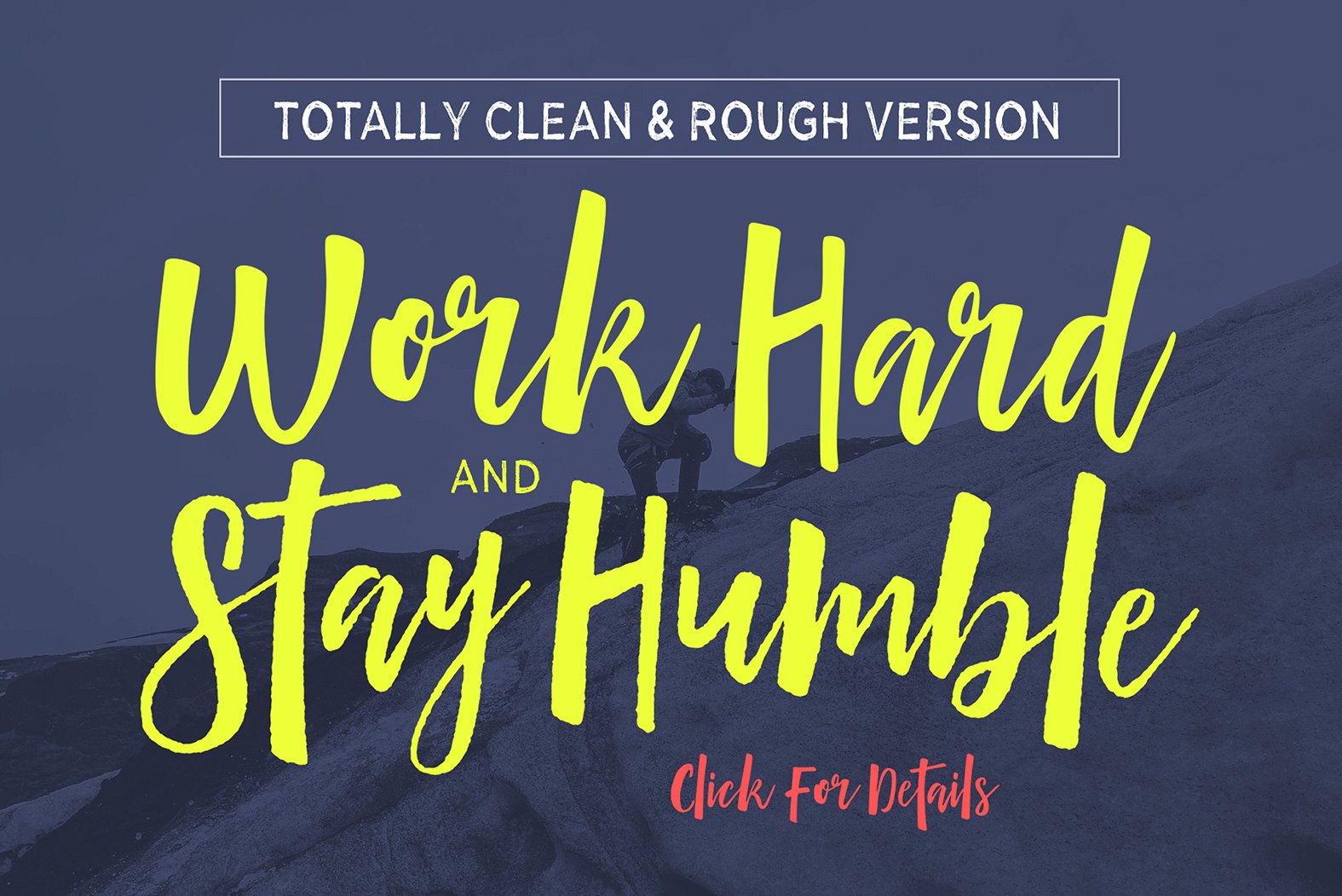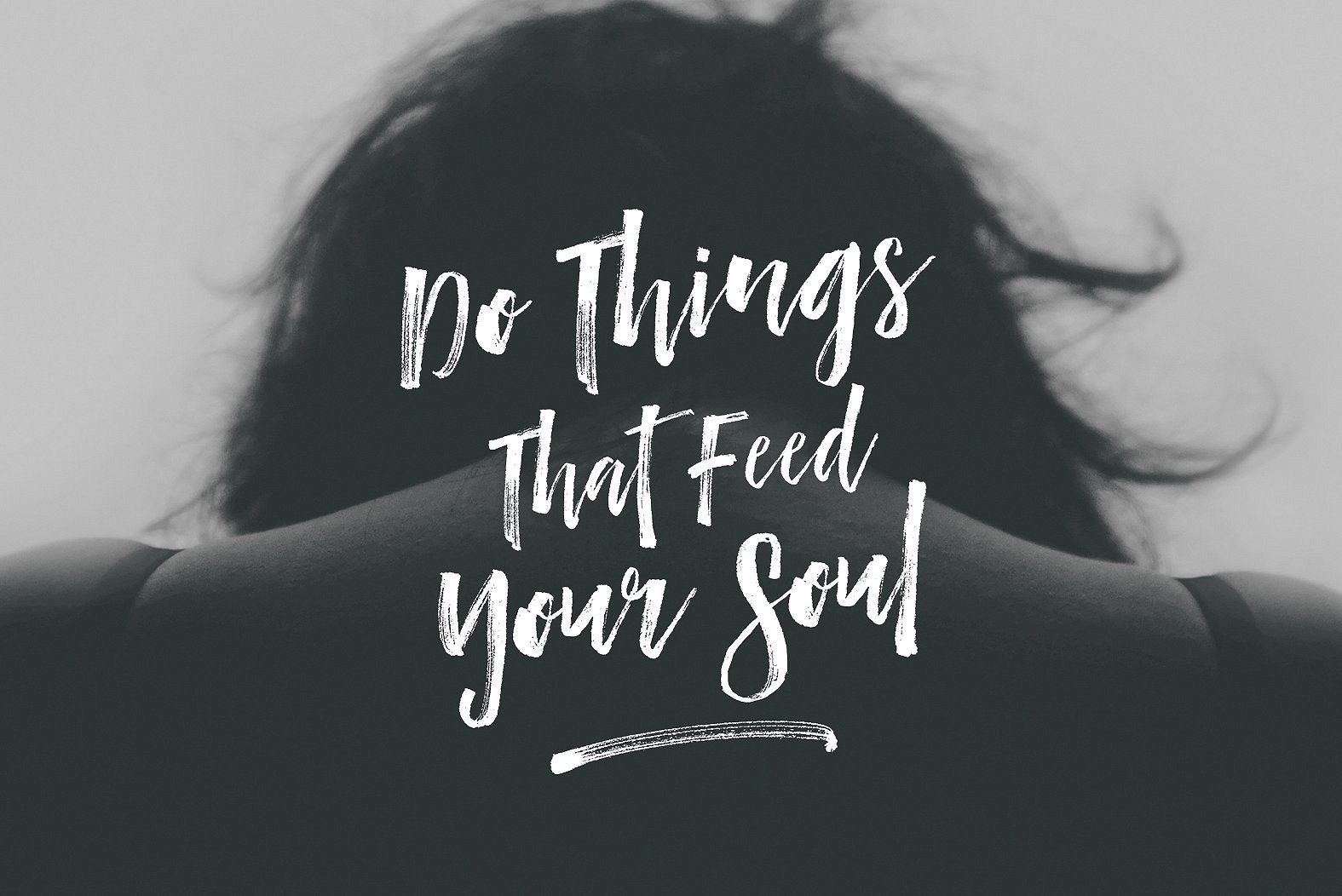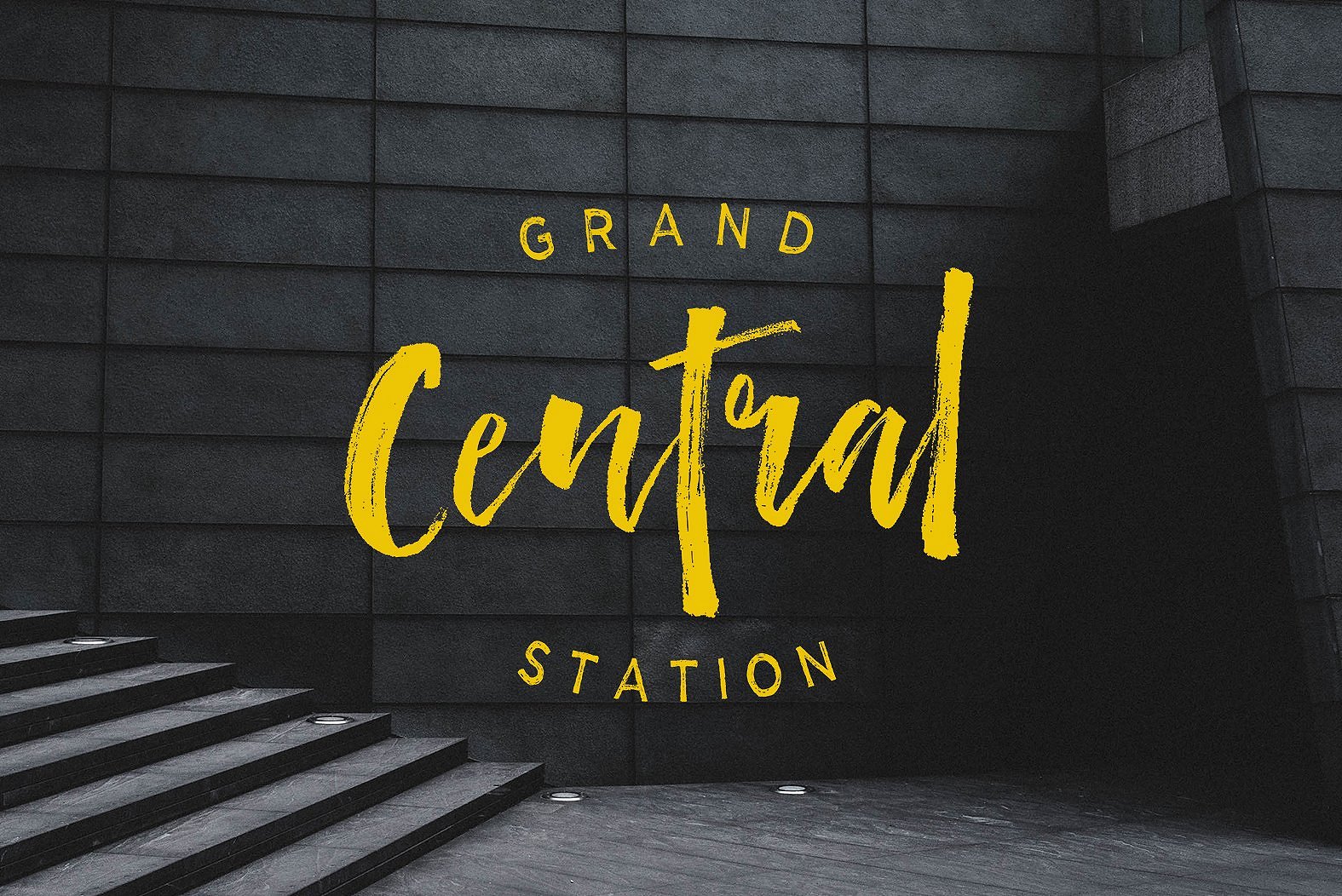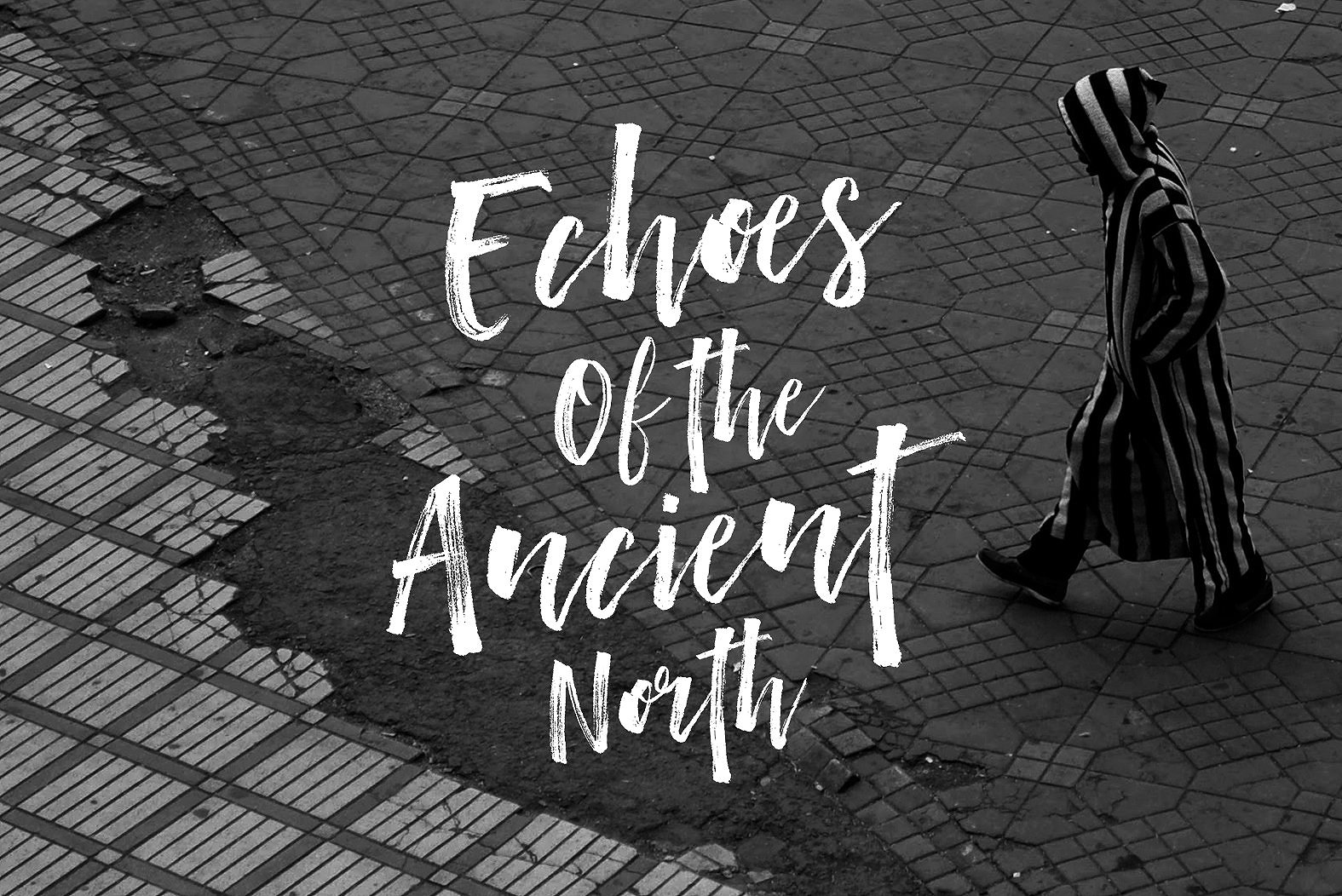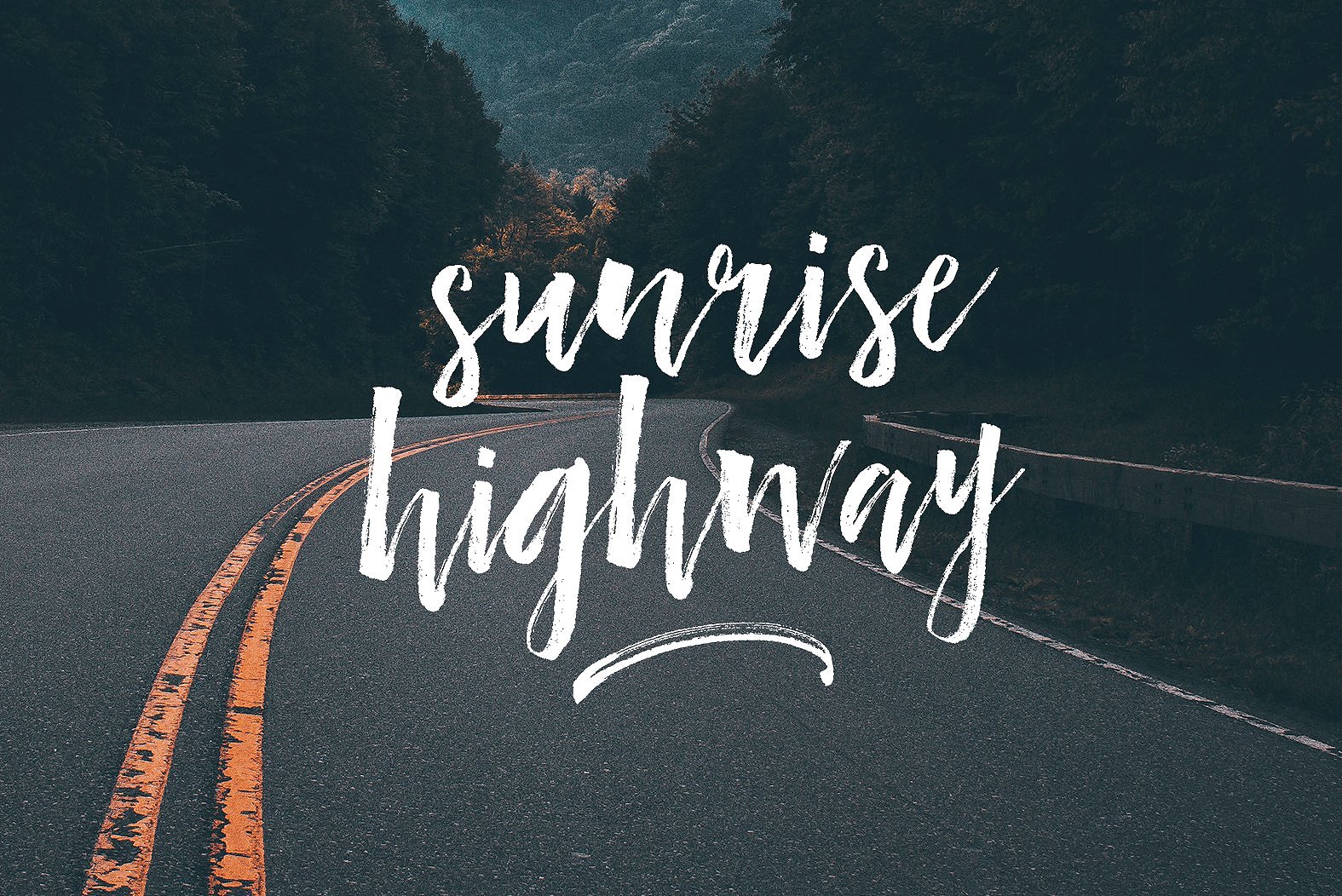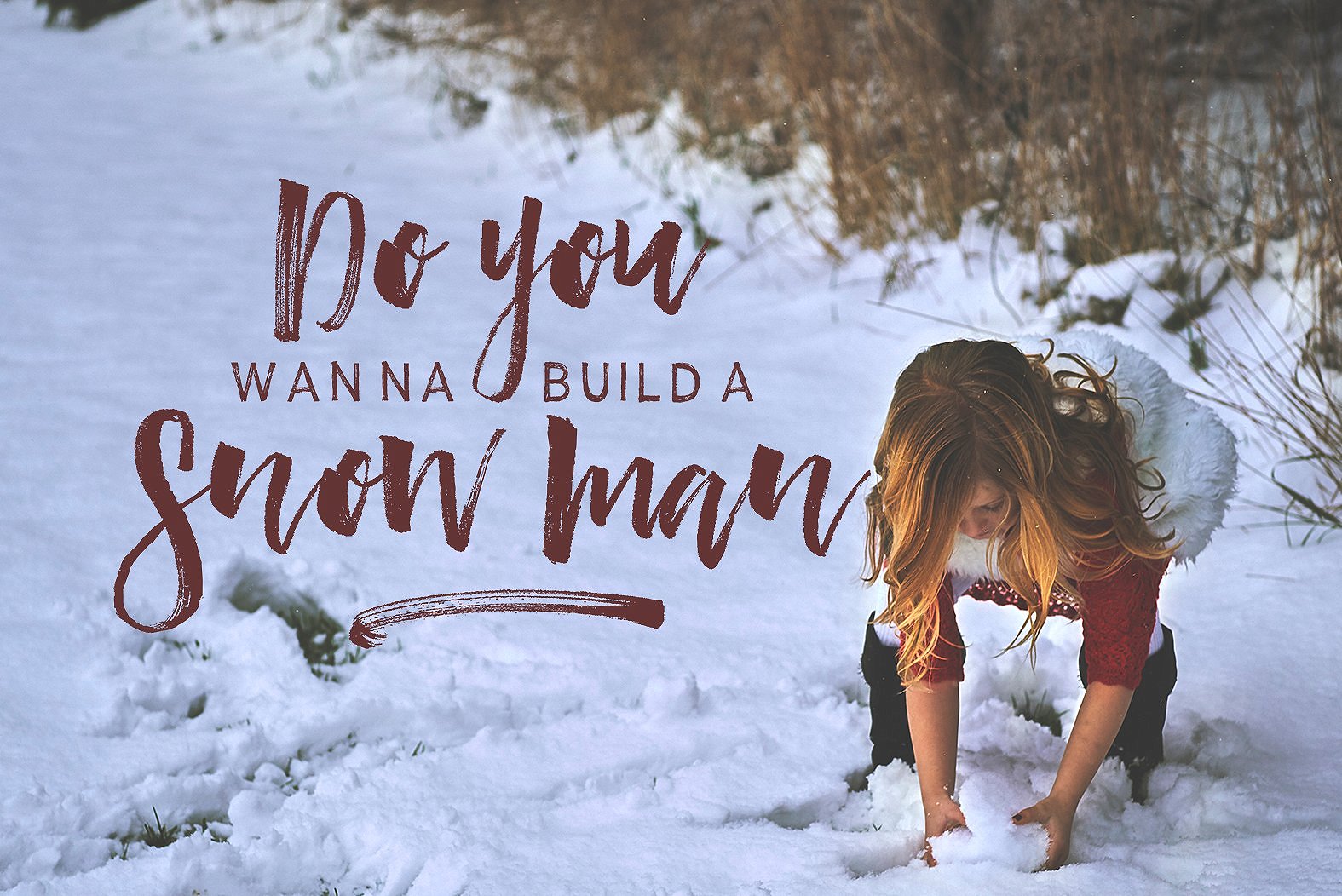
I’ll never forget the design project that led me to discover Boomshell Font. I was working on a branding campaign for a trendy craft brewery, and I needed a font that would capture the playful, artistic vibe of their brand. After hours of scouring font websites and testing out different typefaces, I stumbled upon Boomshell – a hand-painted brush script that instantly elevated my design game. With Boomshell, I was able to create a cohesive visual identity that wowed my client and exceeded their expectations.
So, what makes Boomshell so special? Here are the things I love:
- ✨ Comprehensive font family: Boomshell comes with a range of complementary font styles that make it easy to create a fully realized typography design.
- ✅ Ease of use: Even if you’re not a seasoned designer, Boomshell’s intuitive font styles and OpenType features make it easy to get started.
- 💥 High-impact visuals: Boomshell’s hand-painted brush script style adds a touch of personality and whimsy to any design.
And, a few things to keep in mind:
- 🤔 Glyph limitations: While Boomshell has an impressive range of glyphs, some users may find that it lacks certain special characters.
- ⚠️ Font size limitations: Boomshell can get a bit wonky at very small font sizes, so be sure to test it out before finalizing your design.
The Story Behind Boomshell: Designer Inspiration
Boomshell was created by a talented type designer who wanted to craft a font that would capture the essence of hand-painted brush scripts. Inspired by the works of vintage sign painters and street artists, the designer set out to create a comprehensive font family that would make it easy for designers to create stunning typography. With Boomshell, the designer aimed to create a font that would be both versatile and visually striking – perfect for designs that require a touch of personality and whimsy.
| Font Name | Boomshell Font |
| What makes Boomshell unique? | Boomshell’s unique blend of hand-painted brush script styles and comprehensive font family make it a standout in the world of typography. |
| Is Boomshell suitable for body text? | While Boomshell is a beautiful font, it’s best suited for headlines and titles rather than body text. Its unique character and hand-painted style may be distracting in longer blocks of text. |